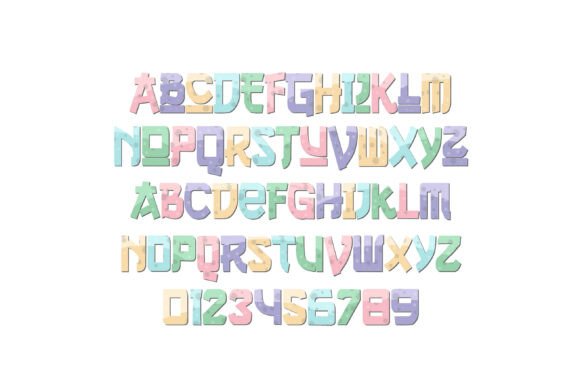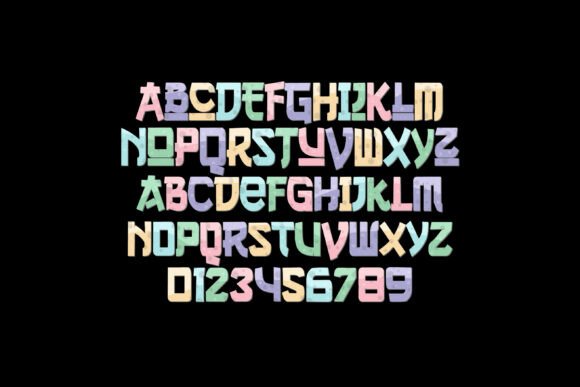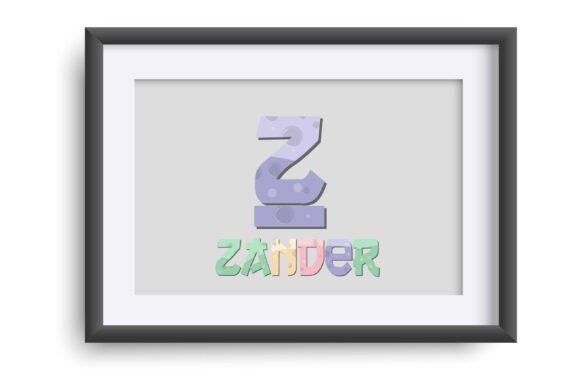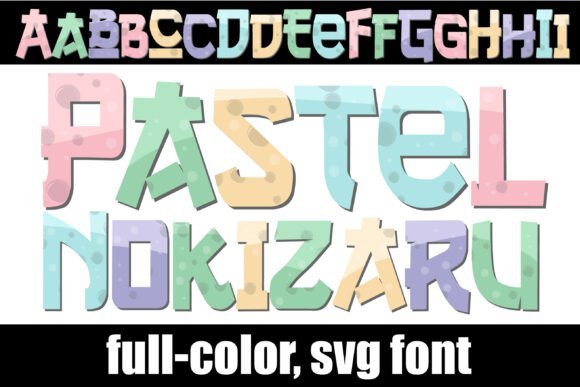
Introduction to Pastel Nokizaru Font
Inject a sense of modern, playful geometry into your designs with Pastel Nokizaru, a high-impact full-color SVG font.
This typeface features bold, jagged letterforms reminiscent of paper-cut art, enhanced with soft pastel gradients and subtle “bubble” textures With its “kawaii-industrial” soul and architectural rhythm, Pastel Nokizaru is the premier choice for independent toy brand logos, vibrant children’s room signage, high-energy gaming UI, and “aesthetic-core” social media headers.
Why Choose Pastel Nokizaru Font?